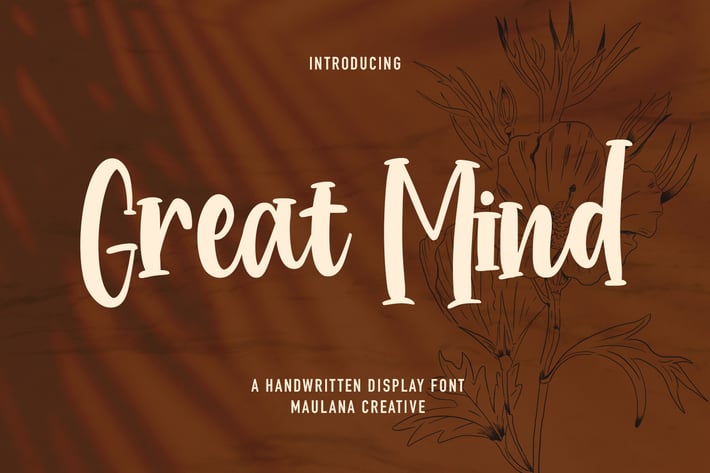
Great Mind Handwritten Display Font
Great Mind is a handwritten display font. With regular stroke, fun character with a bit of ligatures and alternates. To give you an extra creative work. Great Mind font support multilingual more than 100+ language. This font is good for logo design, Social media, Movie Titles, Books Titles, a short text even a long text letter and good for your secondary text font with sans or serif. Make a stunning work with Great Mind font.